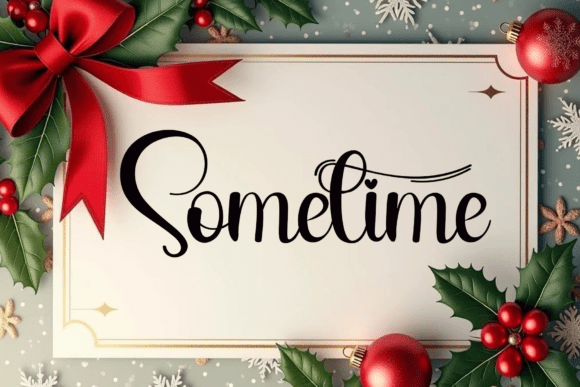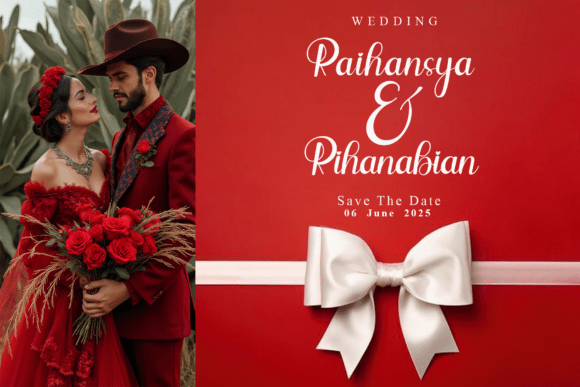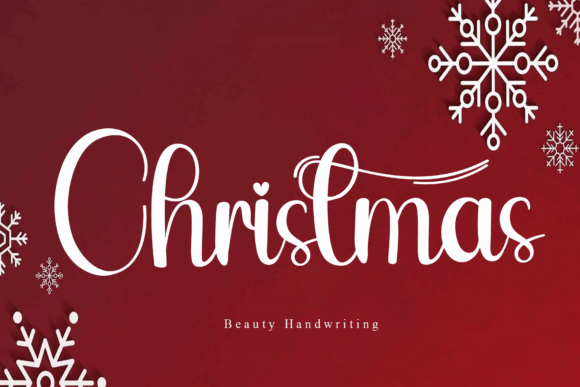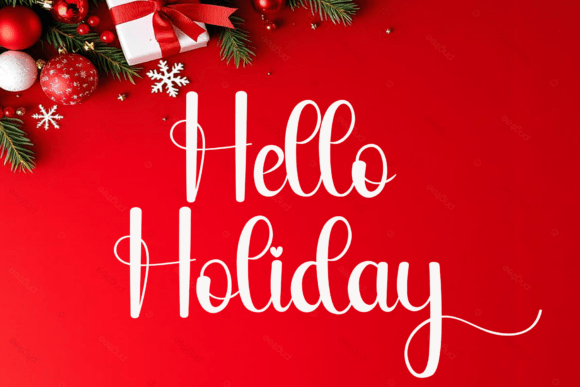
About the Christmas Font
Meet Christmas Font, a stunning font that brings a touch of elegance and professionalism to any design. Christmas is a trendy handwritten font with a contemporary atmosphere and impeccable form, inspired by timeless classic calligraphy. It will add elegance and class to any of your design projects.